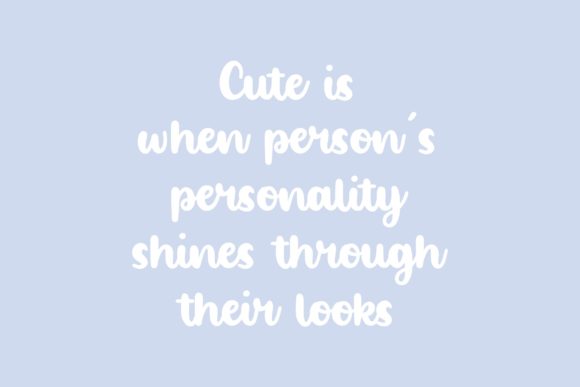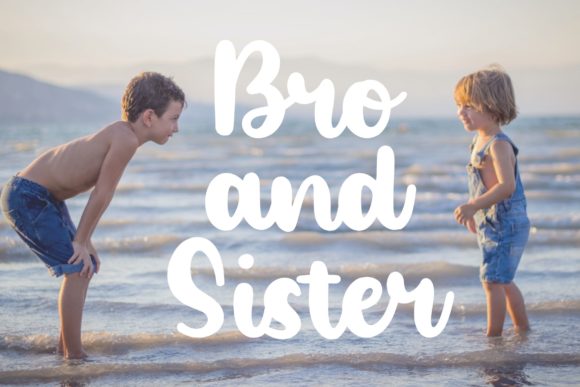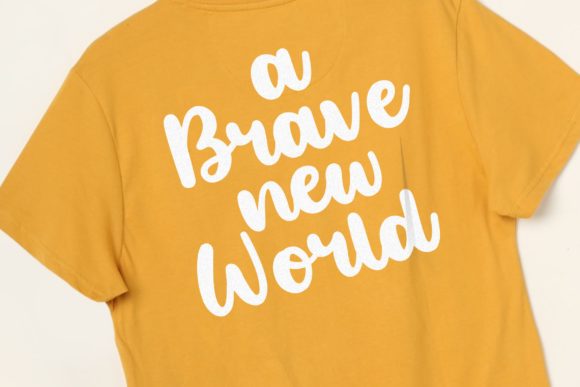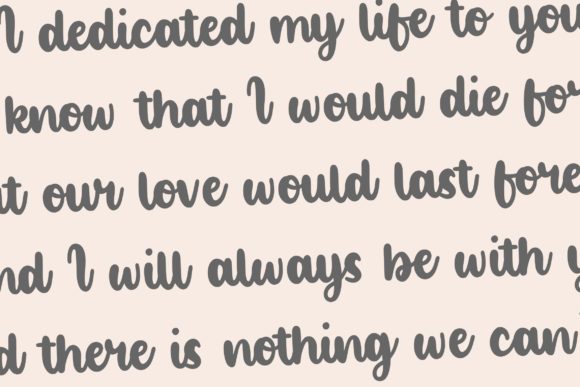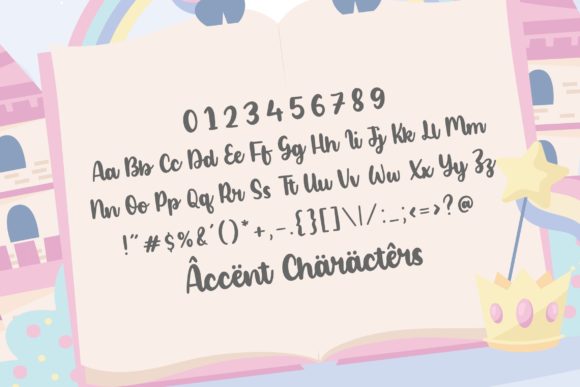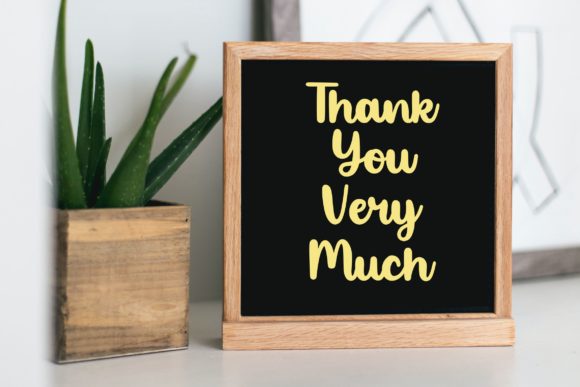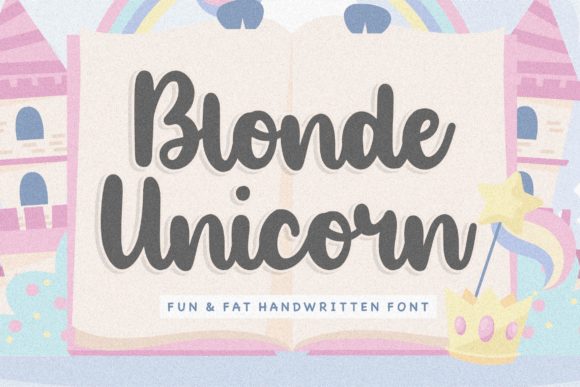
Introducing the Enchanting Blonde Unicorn Font: A Sweet and Flowing Handwritten Delight
Are you a designer, crafter, or creative looking for a font that adds a touch of magic to your projects? Look no further than the Blonde Unicorn Font! This sweet and flowing handwritten font is incredibly versatile and perfect for a wide variety of designs. With its whimsical and enchanting feel, Blonde Unicorn is sure to make your creative ideas come alive!
The Characteristics of Blonde Unicorn Font
Blonde Unicorn Font is a beautifully crafted handwritten font that boasts a range of characteristics that make it perfect for various design projects. Some of its notable features include:
- Sweet and Flowing Script: Blonde Unicorn Font features a smooth, flowing script that is both elegant and playful. Its sweet and gentle feel makes it perfect for designs that require a touch of whimsy and charm.
- Versatility: This font is incredibly versatile and can be used for a wide range of designs, from invitations and greeting cards to branding and packaging.
- Handwritten Feel: The Blonde Unicorn Font has a distinctly handwritten feel that adds a personal touch to any design. Its imperfections and quirks make it feel more organic and human.
Uses for Blonde Unicorn Font
With its versatility and enchanting feel, Blonde Unicorn Font can be used for a wide range of design projects, including:
- Wedding Invitations and Stationery: Add a touch of romance and whimsy to your wedding invitations and stationery with the Blonde Unicorn Font.
- Greeting Cards and Gift Tags: Use Blonde Unicorn Font to create beautiful and personalized greeting cards and gift tags for any occasion.
- Branding and Packaging: Add a touch of magic to your brand’s packaging and marketing materials with the Blonde Unicorn Font.
- DIY Crafts and Scrapbooking: Use Blonde Unicorn Font to add a personal touch to your DIY crafts and scrapbooking projects.
Tips for Using Blonde Unicorn Font
To get the most out of the Blonde Unicorn Font, here are a few tips to keep in mind:
- Experiment with Colors: Try pairing the Blonde Unicorn Font with a range of colors to add depth and interest to your designs.
- Play with Size and Layout: Experiment with different font sizes and layouts to create visual interest and hierarchy in your designs.
- Mix and Match with Other Fonts: Try pairing the Blonde Unicorn Font with other fonts to create a unique and interesting contrast.